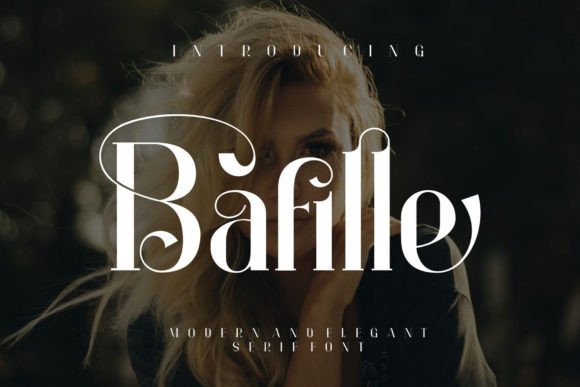
Introducing Bafille Font, the epitome of elegance and class in the world of serif fonts. Created by the talented Alfinart, this font is a true masterpiece that embodies the essence of old style fonts. With its captivating appeal and a touch of nostalgia, Bafille Font is here to elevate your designs and captivate your audience.
Bafille Font is not just any ordinary typeface; it is a harmonious blend of modernity and vintage charm. Its timeless beauty makes it perfect for a wide range of design projects, from logos to magazines and even social media posts. With Bafille Font, you can effortlessly create stunning visuals that leave a lasting impression.
What sets Bafille Font apart from the rest is its versatility and ease of use. Whether you're a seasoned designer or just starting out, this font is ready to be your creative companion. It comes pre-matched and ready to be used together, saving you valuable time and effort. Say goodbye to endless font pairing struggles and let Bafille Font do the work for you.
But what truly makes Bafille Font a must-have is the emotions it evokes. Imagine the feeling of elegance, style, and class that this font brings to your designs. With every stroke, it whispers sophistication and refinement, adding a touch of chic to your creations. It is the secret ingredient that takes your design from ordinary to extraordinary.
So why wait? Take your designs to new heights with Bafille Font. Let it be the driving force behind your brand's identity, making it instantly recognizable and memorable. Whether you're aiming for a vintage-inspired logo or a modern magazine layout, this font has got you covered.
Bafille Font is more than just a font; it's a statement. It speaks volumes about your taste, your attention to detail, and your dedication to excellence. It is the missing piece that completes your design puzzle.